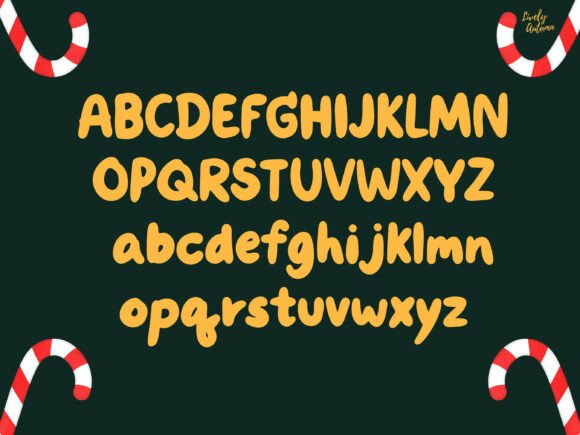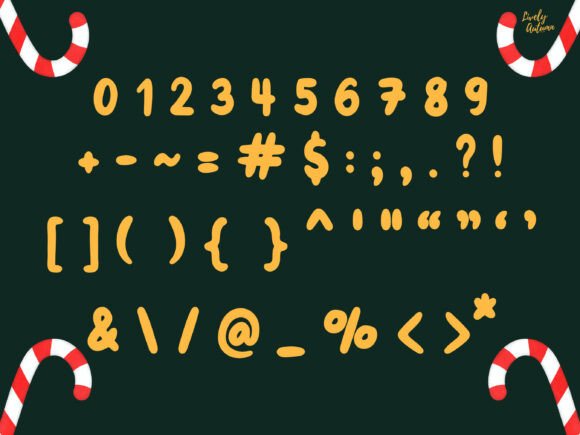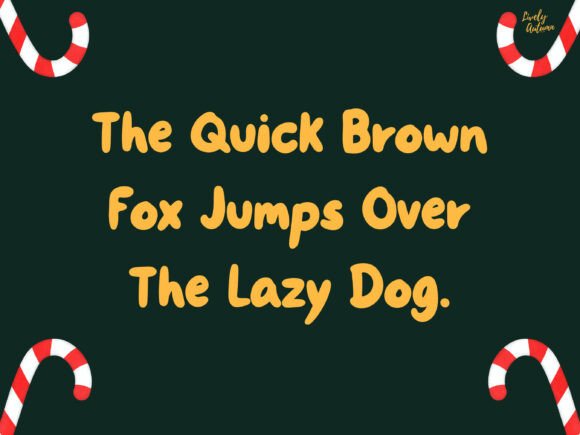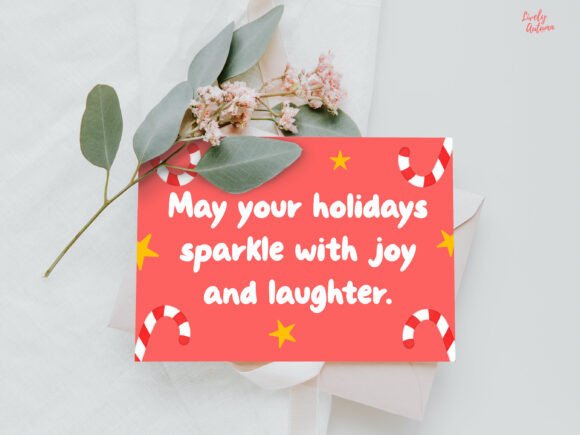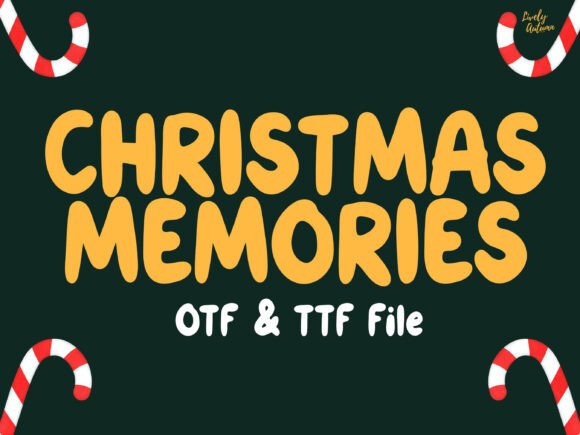
Christmas Memories Font: A Cozy Addition to Your Design Projects
As the holiday season approaches, designers and crafters are on the lookout for the perfect typography to evoke the warmth and coziness of Christmas. If you’re searching for a font that captures the essence of handwritten notes and diary entries, look no further than the Christmas Memories Font. Inspired by the nostalgia of writing in a diary, this handwriting font is perfect for adding a personal touch to your projects.
The Story Behind Christmas Memories Font
Christmas Memories Font is a carefully crafted typeface designed to transport you back to a time when life was a little more simple. The font’s creator aimed to capture the imperfections and charm of handwritten writing, making it perfect for projects that require a personal and intimate feel. Whether you’re working on invitations, posters, social media graphics, journals, or greeting cards, Christmas Memories Font is sure to add a touch of warmth and personality to your designs.
Key Features of Christmas Memories Font
- Handwritten style: Christmas Memories Font boasts a beautiful, handwriting-style script that’s perfect for creating a personal and cozy feel.
- Diary-inspired: The font’s design is inspired by the nostalgia of writing in a diary, making it ideal for projects that require a touch of nostalgia.
- Versatile: From invitations to posters, social media graphics, journals, and greeting cards, Christmas Memories Font can be used for a wide range of projects.
Christmas Memories Font is a versatile typeface that’s perfect for designers and crafters who want to add a personal touch to their projects. Whether you’re creating:
- Invitations: Use Christmas Memories Font to create beautiful, handwritten-style invitations for parties, weddings, and other special occasions.
- Posters: Add a touch of personality to your posters with Christmas Memories Font, perfect for promoting events, products, or services.
- Social media graphics: Use Christmas Memories Font to create engaging social media graphics that stand out from the crowd.
- Journals and planners: Add a personal touch to your journals and planners with Christmas Memories Font, perfect for creating a unique and functional design.
- Greeting cards: Use Christmas Memories Font to create beautiful, handmade-style greeting cards for special occasions.
Tips for Using Christmas Memories Font
To get the most out of Christmas Memories Font, here are a few tips to keep in mind:
- Use it sparingly: While Christmas Memories Font is beautiful, it’s best used sparingly to add emphasis to key elements of your design.
- Pair it with other fonts: Experiment with pairing Christmas Memories Font with other fonts to create a unique and visually appealing design.
- Adjust the size and color: Play around with different sizes and colors to find the perfect combination for your design.
Christmas Memories Font is a beautiful, handwriting-style typeface that’s perfect for designers and crafters who want to add a personal touch to their projects. With its diary-inspired design and versatile nature, it’s ideal for a wide range of projects, from invitations to posters, social media graphics, journals, and greeting cards. So why not give Christmas Memories Font a try and see how it can add a touch of warmth and personality to your designs?